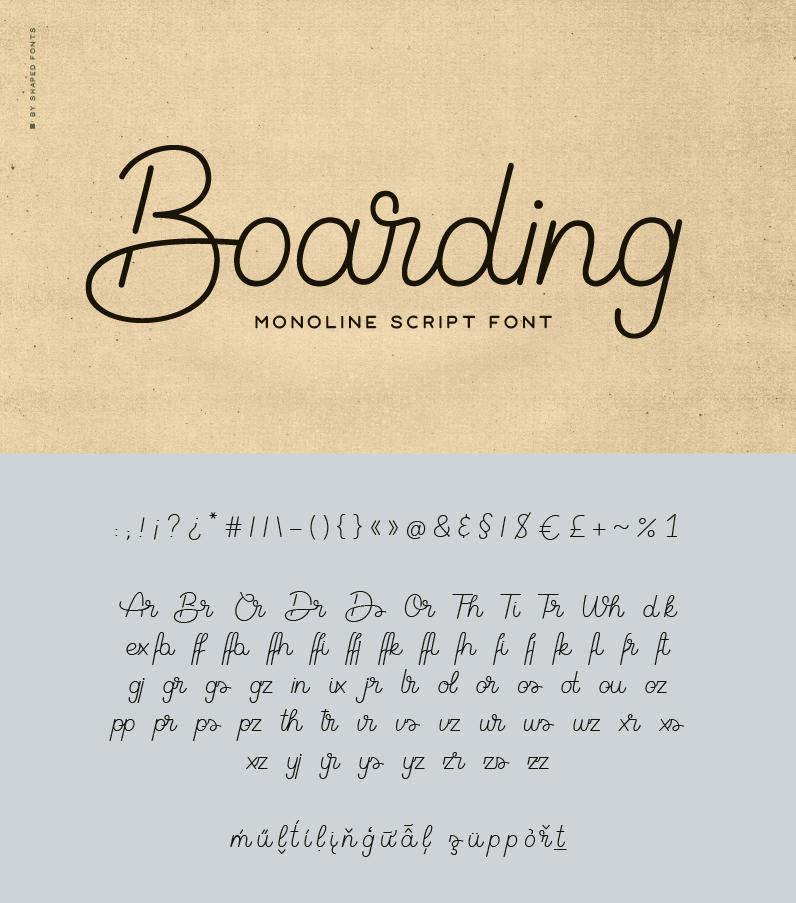
*** Visit www.shapedfonts.com/boarding to buy the full version (included with a license) *** which also has a wide multilingual support, symbols and numbers. Boarding is our newest handwritten monoline font. The full version (see below) comes with loads of contextual alternates, initial & terminal forms, ligatures and more which sums up to an incredible amount of 600 glyphs. The monoline look makes the font versatile and suitable for any project. PLEASE NOTE: This font is free for personal use only. If you want to use it commercially, please buy a license on our website: www.shapedfonts.com/boarding |